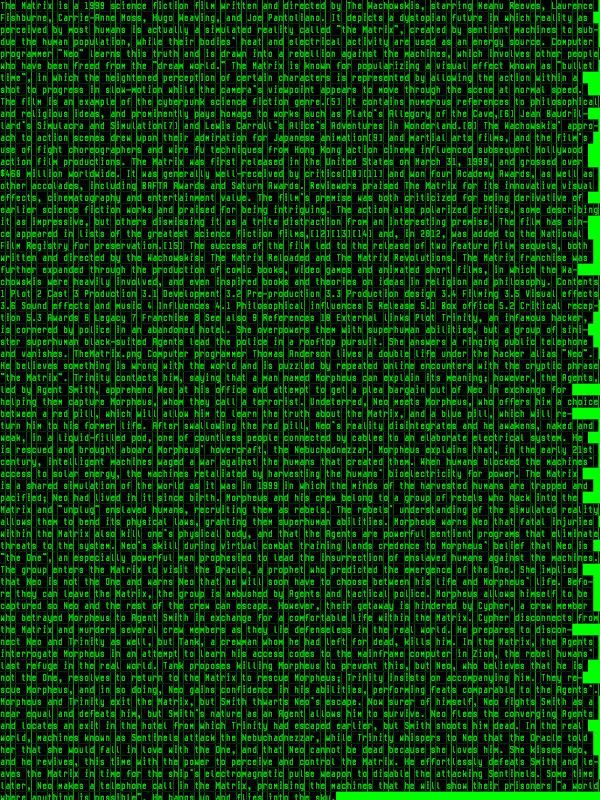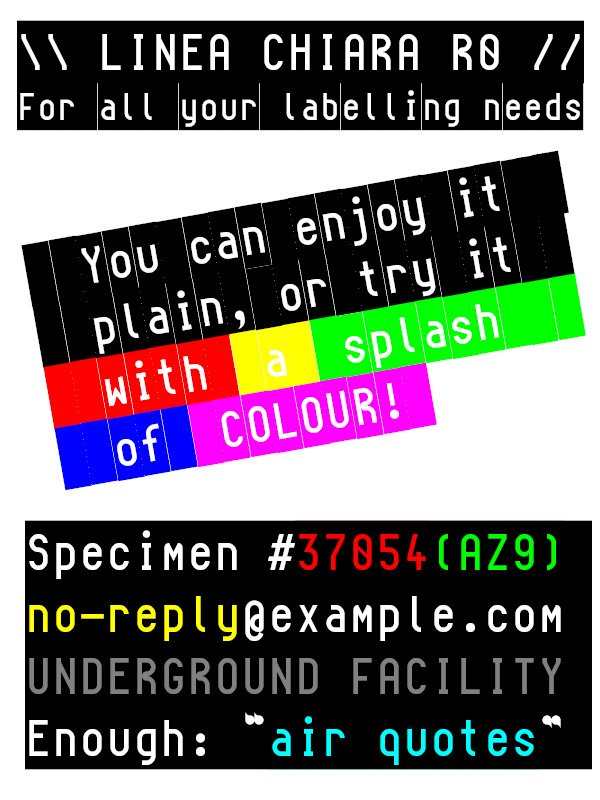
How did you color the inside in that sample?
@Brynda: I used strategically placed solid colours (using the space character) in the background (alternatively, one could use gradients or a photo as well). Another way would be to export the text as a vector or raster image and fill the blanks.
To do: slightly overlapping borders (or clear separation between blocks); expanded glyphs coverage.